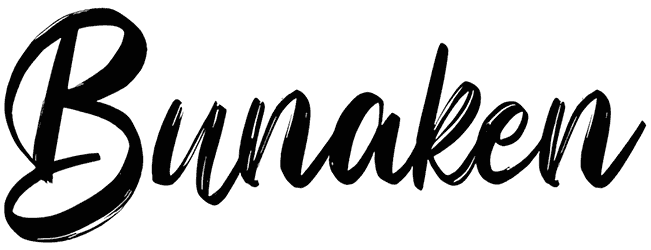
Bunaken Font
What could be more humorous than putting letters together and making an animated picture of the presentation? Bunaken, as a tropical script font, can exactly do it and roll up a delightful and whimsical mood to your coming style.
Being an A-Z brush font that gives you more freedom to make multiple designs with the sweet cozy theme due to its organic, friendly-looking, it can display nicely for many creative schemes like flyers, greeting cards, invitations, apparel, or many more.
Bunaken looks bold, yet sophisticated and features chunky and extended characters that will look particularly adept when used in logos, branding, packaging design, and much more.